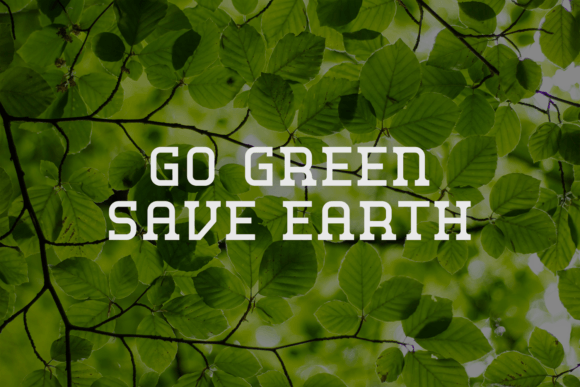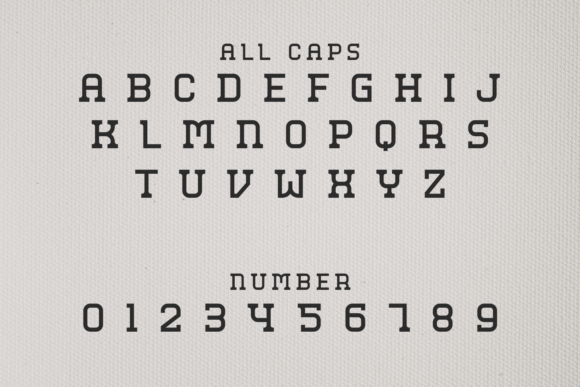
Unlocking the Potential of Mihrip Font
Have you ever been in the middle of a creative project, staring at a blank canvas or screen, and suddenly, a spark of inspiration hits you? You see the perfect font in your mind, one that perfectly captures the essence of your design and elevates it to new heights. For many designers, this moment is what makes all the hard work worth it.
As a valuable resource for designers, the Mihrip Font is a game-changer. With its unique design and high level of detail, this font is a must-have in any font library. Whether you’re working on a free download or a commercial project, Mihrip Font has the potential to take your design to the next level. Its transparent background and high-quality design make it a versatile tool for any creative project, from logos to graphics and beyond.
Key Features of Mihrip Font
- Features a clean and minimalist design, making it perfect for use in various contexts, from branding to digital media.
- Unique characteristics: Includes a range of stylistic sets and ligatures, providing designers with additional creative options.
Honest Review: Mihrip Font
I recently came across the Mihrip Font, and I must say it’s a great addition to any design resource. It’s perfect for creative projects where you need a unique and stylish font.
The Mihrip Font offers a free download option, which is always a plus. The font itself has a clean and minimalist design, making it easy to read and versatile for use in various contexts.
Here are some of the things that work well about the Mihrip Font:
- High quality design that’s perfect for creative projects
- May not be suitable for formal or professional contexts due to its playful design
- No bold or italic font options available
Overall, I’m impressed with the Mihrip Font and would definitely recommend it to designers looking for a high-quality, free font for their creative project.
Tips for getting the most out of the Mihrip Font include using it on a transparent background for a sleek look, experimenting with different font sizes and colors, and combining it with other design elements to create a unique visual identity.
The Mihrip Font is perfect for a variety of use cases, such as creating logos, social media graphics, and presentations. With its high-quality design and free download option, it’s an excellent addition to any creative project.